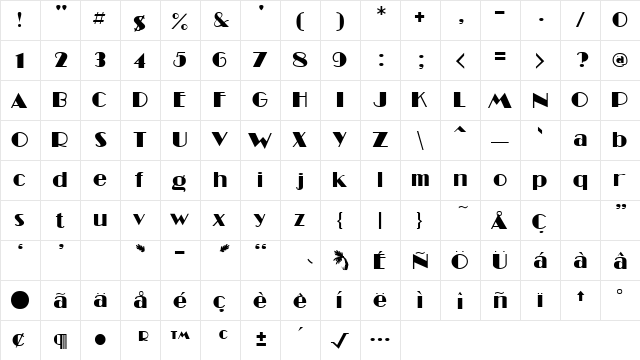
MiamiNights Regular Font Preview
MiamiNights Regular
Design Context for MiamiNights Typeface
MiamiNights is a composed and adaptable typeface that performs quietly and consistently across a wide range of design contexts.
Pro Tip: Pair MiamiNights with a font of contrasting weight or personality to build a more expressive typographic hierarchy.